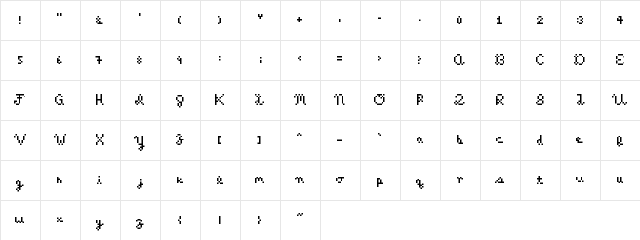
kelsey Regular
| Designer | Carissa S |
Design Context for kelsey Typeface
kelsey is a composed and adaptable typeface that performs quietly and consistently across a wide range of design contexts.